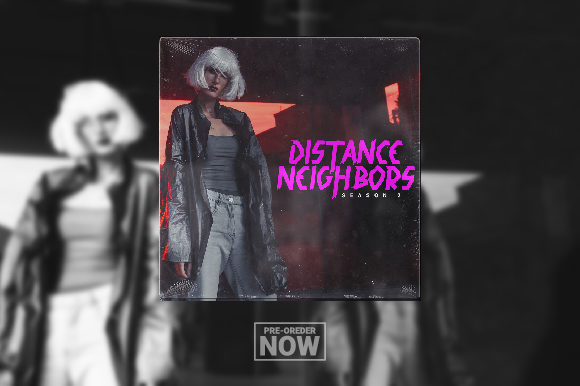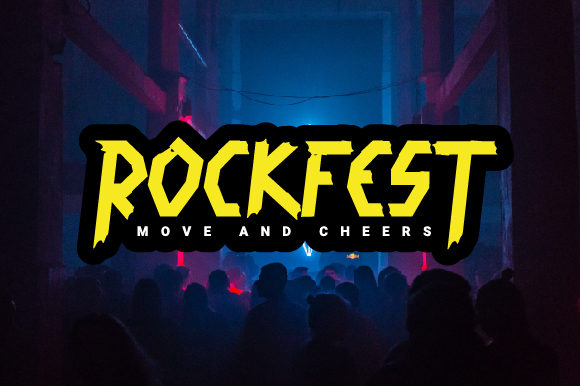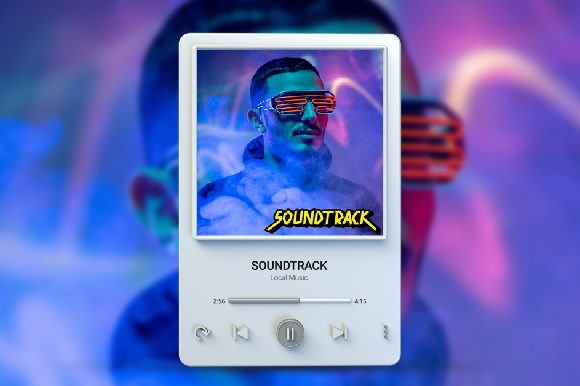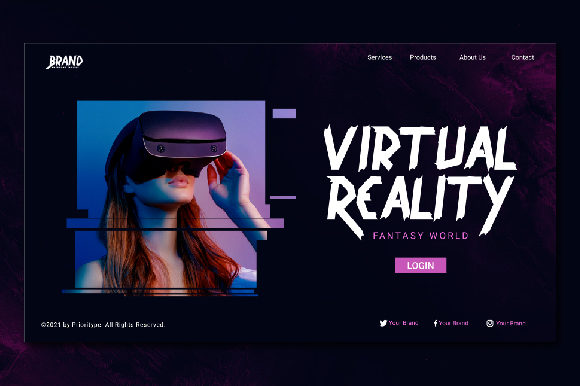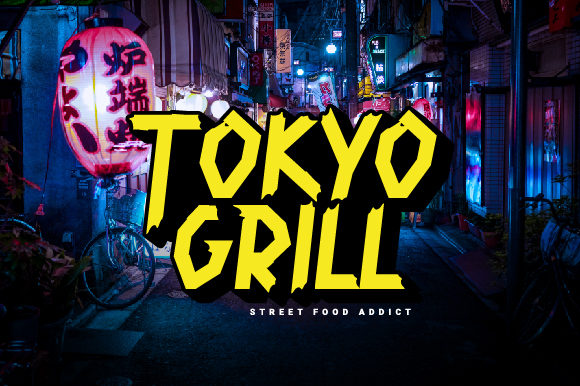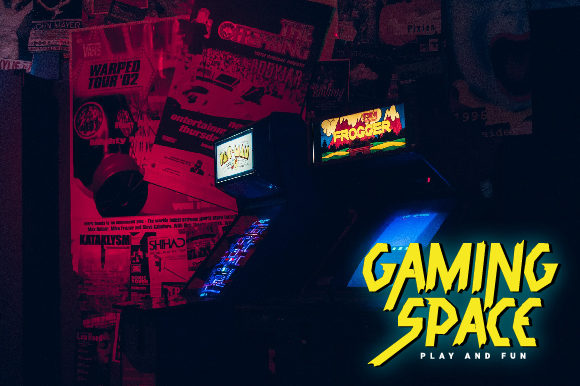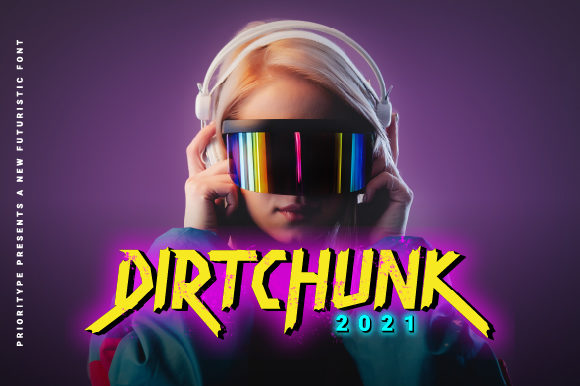
Unleashing the Power of Dirtchunk Font: A Game-Changer in Futuristic Typography
In the ever-evolving world of design, fonts play a pivotal role in shaping the visual identity of a project. With the vast array of typefaces available, finding the perfect font that embodies the essence of your creation can be a daunting task. However, if you’re looking for a font that screams futuristic charm and versatility, look no further than the Dirtchunk Font. This display font is not just a typeface; it’s an experience that brings a breakthrough in the futuristic world of fonts, offering endless possibilities for creative expression.
The Essence of Dirtchunk Font
Dirtchunk Font is a revolutionary display font designed to instantly add a cool touch to your designs. Its unique, chunky aesthetic is reminiscent of futuristic landscapes, making it perfect for projects that demand a modern and edgy look. Whether you’re working on a branding project, a website design, or crafting a statement piece for your social media, Dirtchunk Font is poised to elevate your work to new heights.
Exploring Endless Variations
One of the most exciting features of Dirtchunk Font is its incredible versatility. This font doesn’t just stop at being stylish; it invites you to explore its endless variations, ensuring that your designs never have to be boring or repetitive. With Dirtchunk, you can experiment with different sizes, colors, and even combine it with other fonts to create a unique visual hierarchy. The possibilities are truly limitless, allowing designers and crafters to push the boundaries of their creativity.
Why Designers and Crafters Love Dirtchunk Font
- Unique Aesthetic: Dirtchunk Font offers a fresh and distinctive look that sets it apart from more traditional typefaces. Its futuristic appeal makes it perfect for projects that require a modern edge.
- Versatility: From digital displays to print materials, Dirtchunk Font adapts seamlessly across various mediums, ensuring your designs look great everywhere.
- Easy to Use: Despite its complex appearance, Dirtchunk Font is surprisingly easy to use, making it accessible to both professional designers and hobbyists.
- Community Support: Being part of a growing community of designers and crafters who experiment with and showcase their work using Dirtchunk Font, you’ll find inspiration and resources to help you get the most out of this amazing font.
Tips for Getting the Most Out of Dirtchunk Font
To truly harness the power of Dirtchunk Font, consider the following tips:
- Mix and Match: Combine Dirtchunk Font with other typefaces to create a compelling visual contrast. A bold, chunky font like Dirtchunk pairs well with simpler sans-serifs for a balanced look.
- Play with Sizes: Don’t be afraid to experiment with different font sizes. Using a large size for headings and a smaller size for body text can create a visually appealing hierarchy.
- Color is Key: Take advantage of the font’s chunky design by using vibrant colors. Gradients, shadows, and outlines can add depth and dimension to your text.
Dirtchunk Font is more than just a typeface; it’s a tool for creative expression. Its unique blend of futuristic charm and versatility makes it an invaluable asset for designers and crafters looking to make a statement. Whether you’re aiming to create a bold brand identity, design a captivating website, or simply add some flair to your craft projects, Dirtchunk Font is sure to deliver. So, have fun with this beautiful font, explore its endless variations, and watch your designs transform into something truly remarkable.